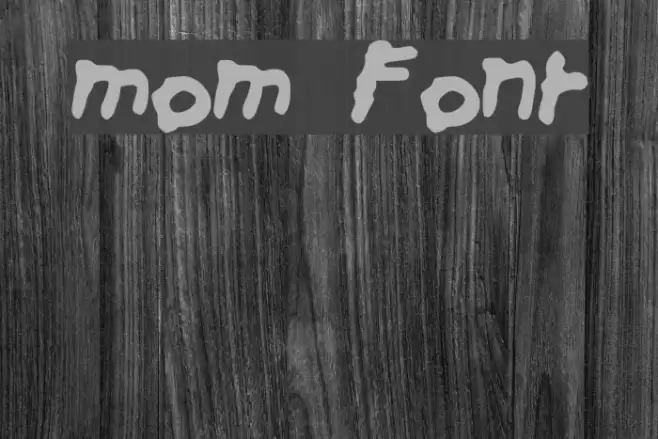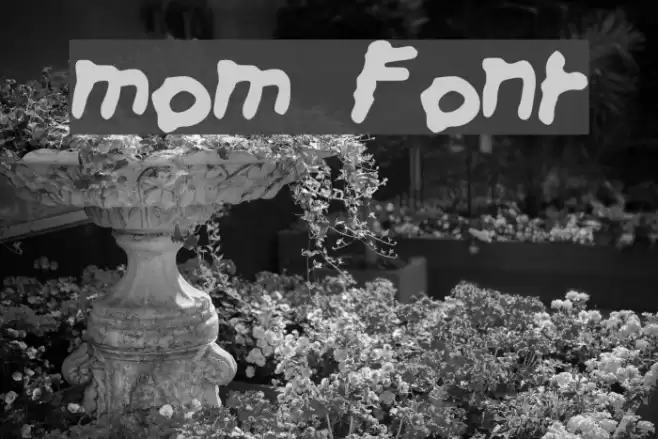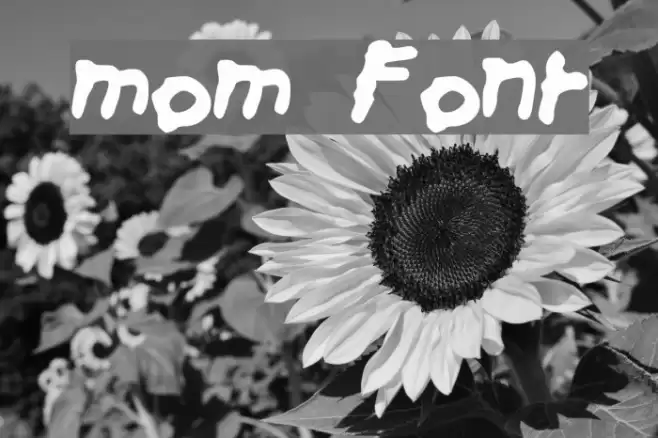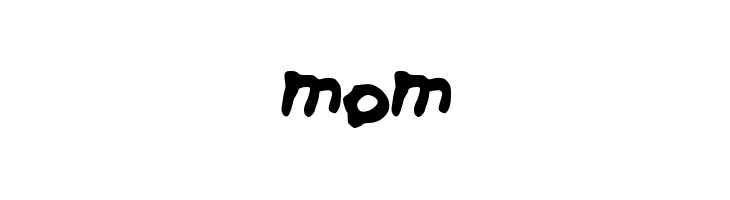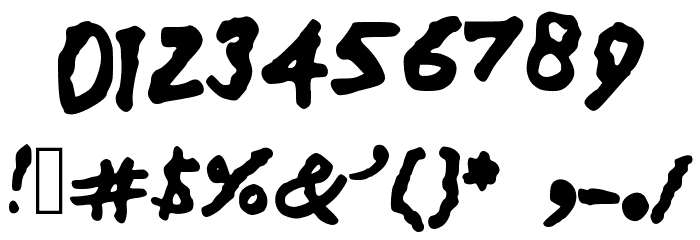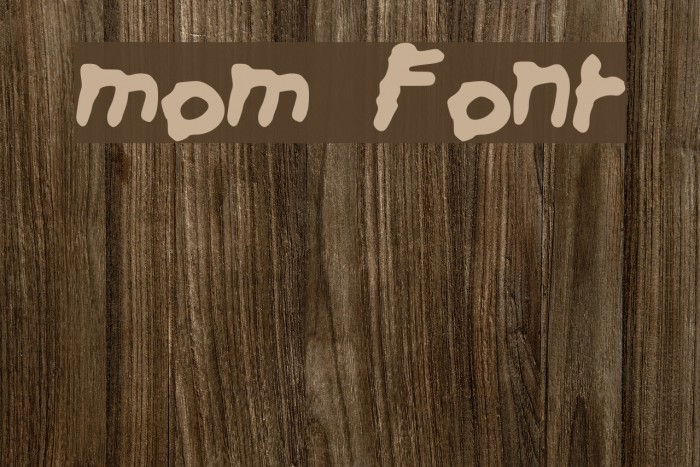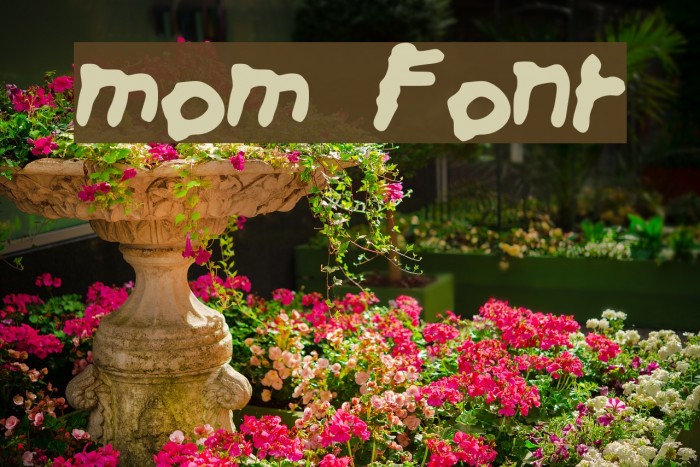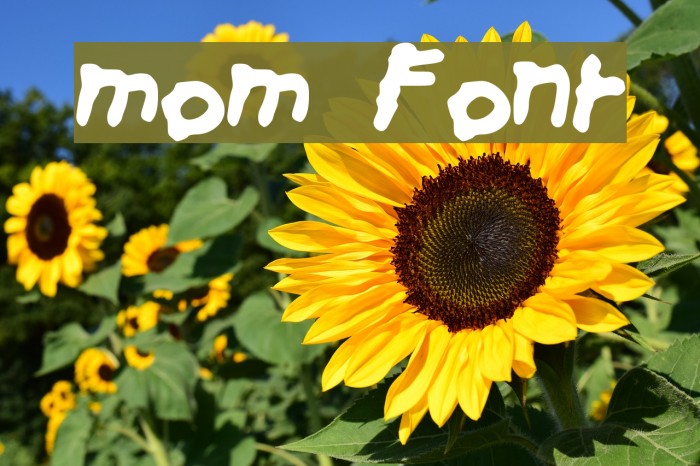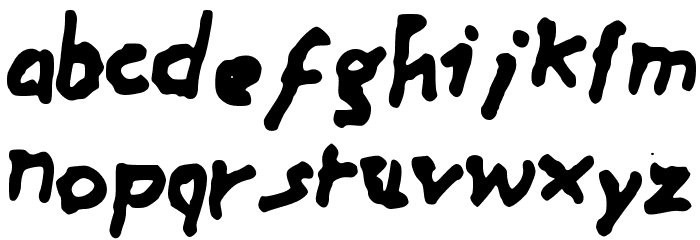
mom Font
mom Description
This font features a bold, handwritten style with a playful and informal appearance. The characters are unevenly shaped, giving a dynamic and energetic feel. The strokes are thick and consistent, creating a strong presence on the page. The uppercase and lowercase letters maintain a cohesive look, while the numbers and special characters add to the font's versatility. The overall design is reminiscent of casual handwriting, making it suitable for projects that require a personal touch.
A bold, playful handwritten font with a dynamic and informal style from Handwritten fonts.
- Proposed Projects: Ideal for greeting cards, children's books, informal invitations, and playful branding.
- Overall Style: Playful, Informal
- Use Case: Logos, Headlines, Informal Text